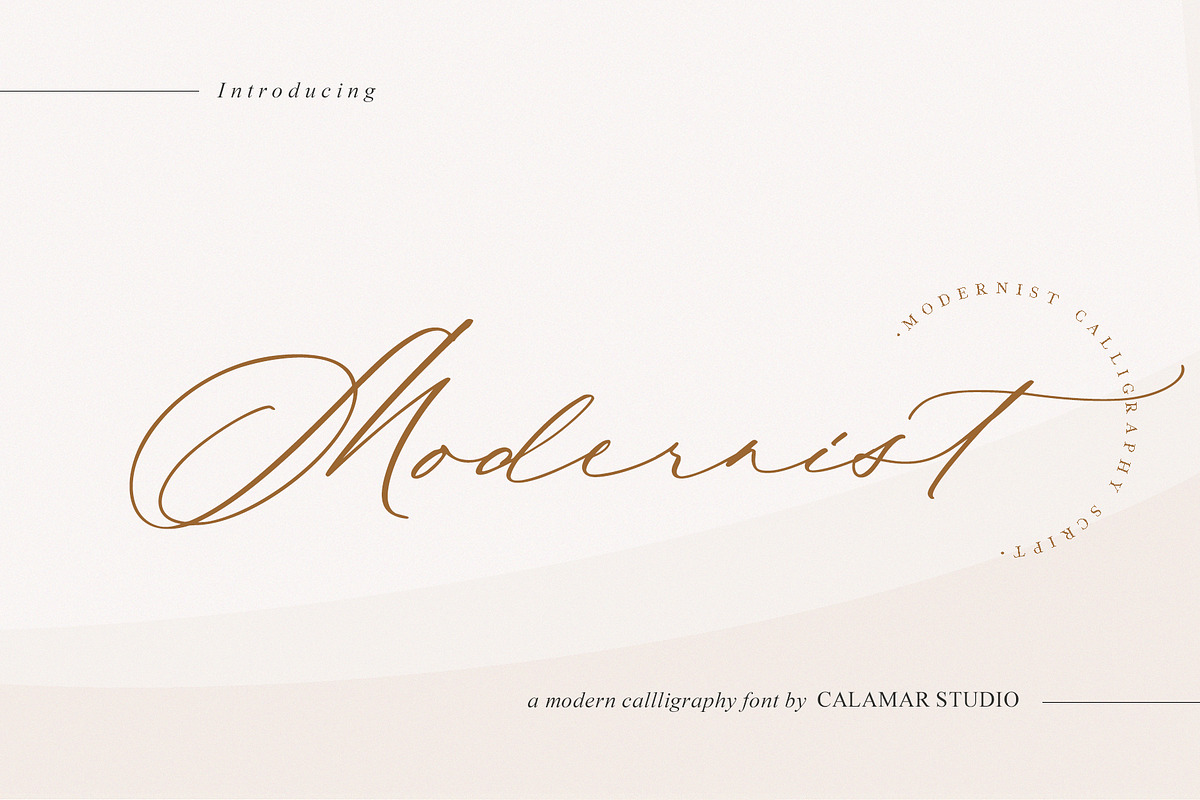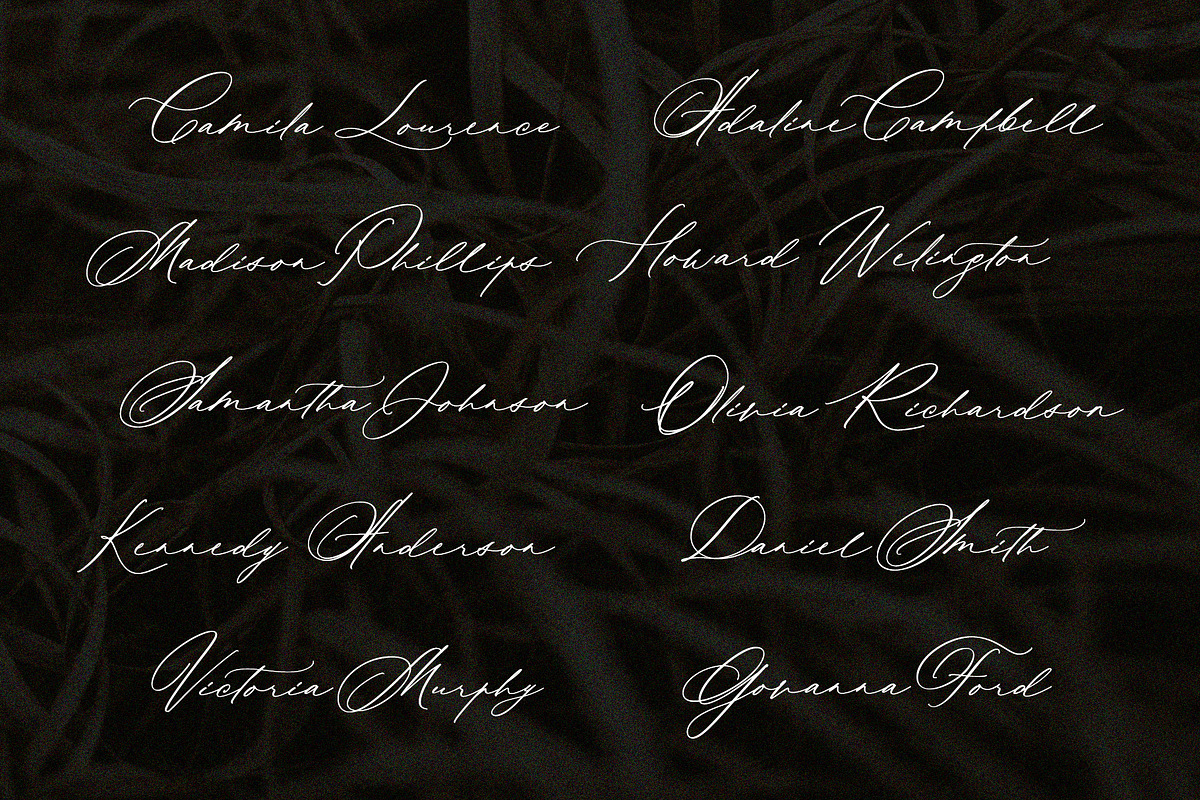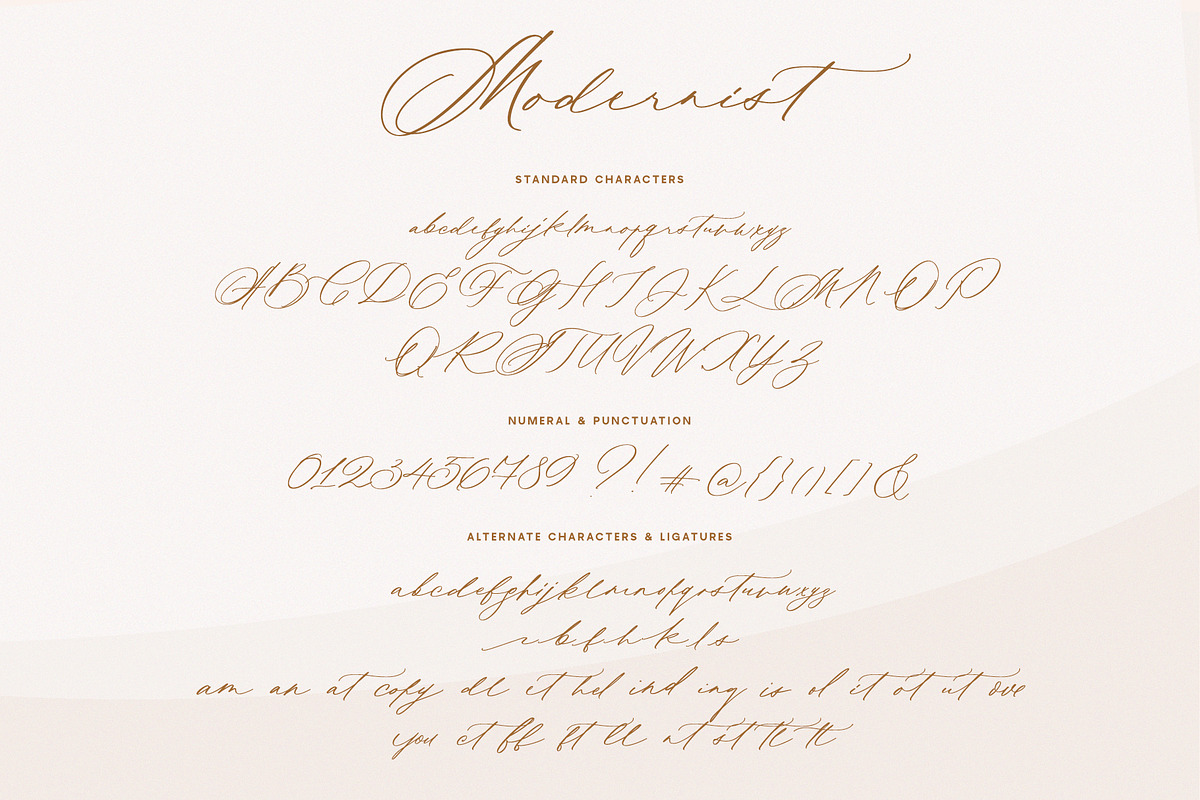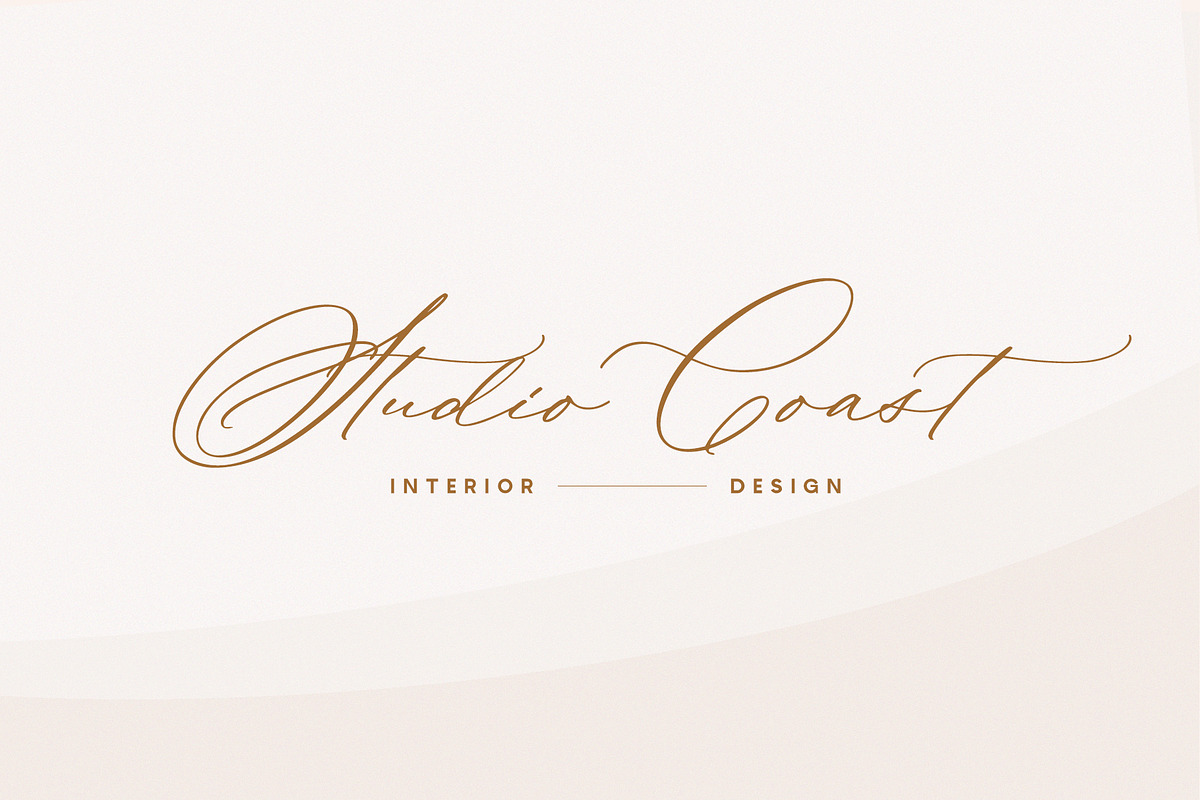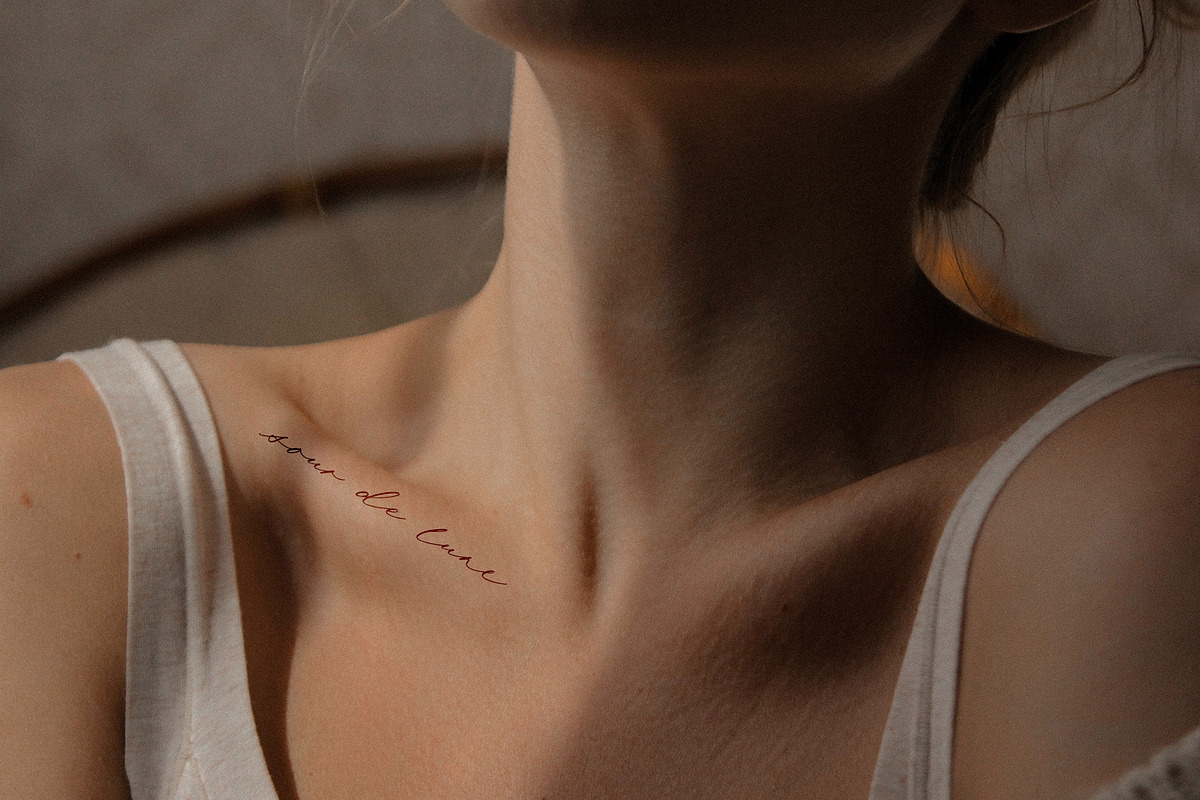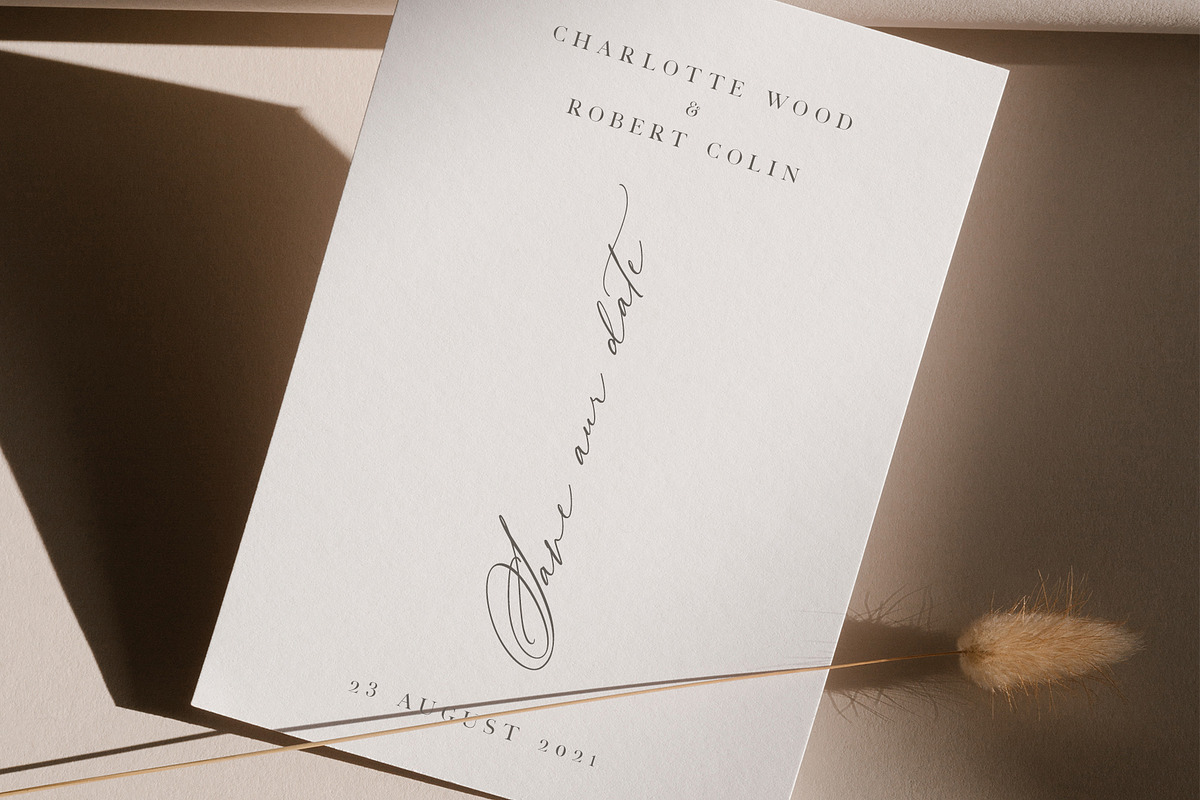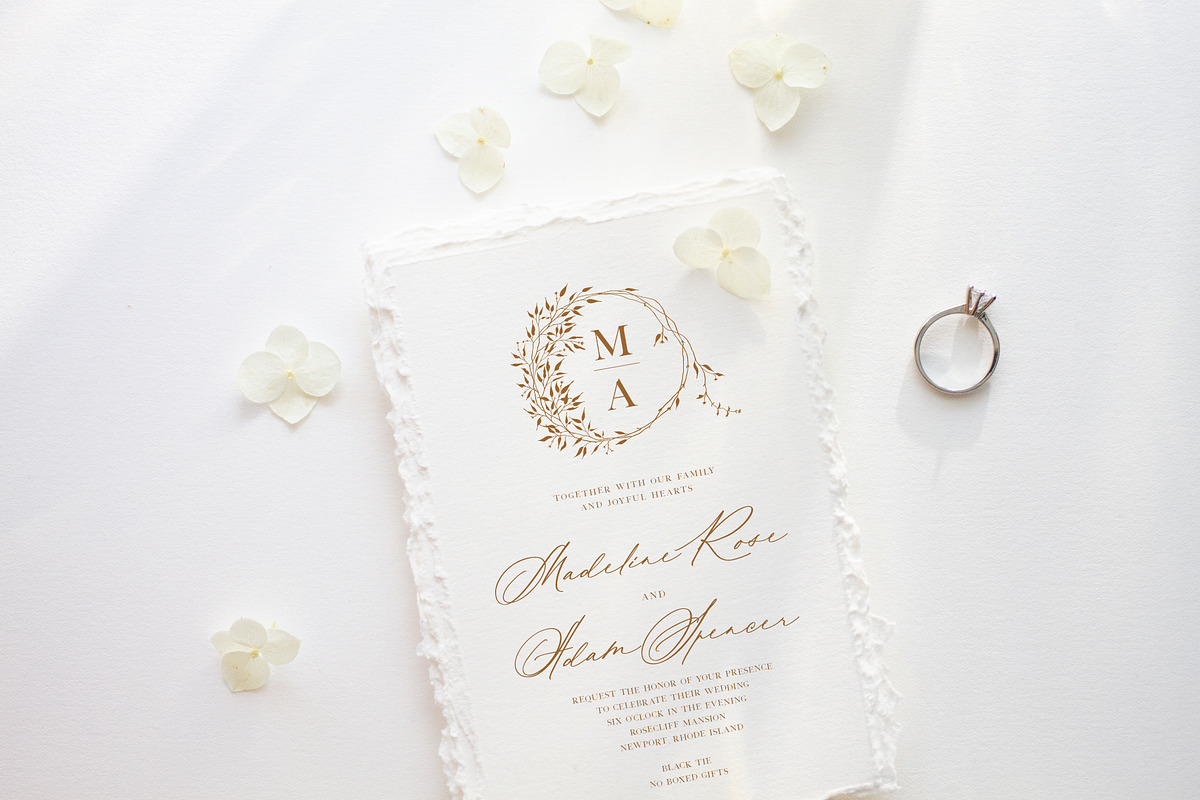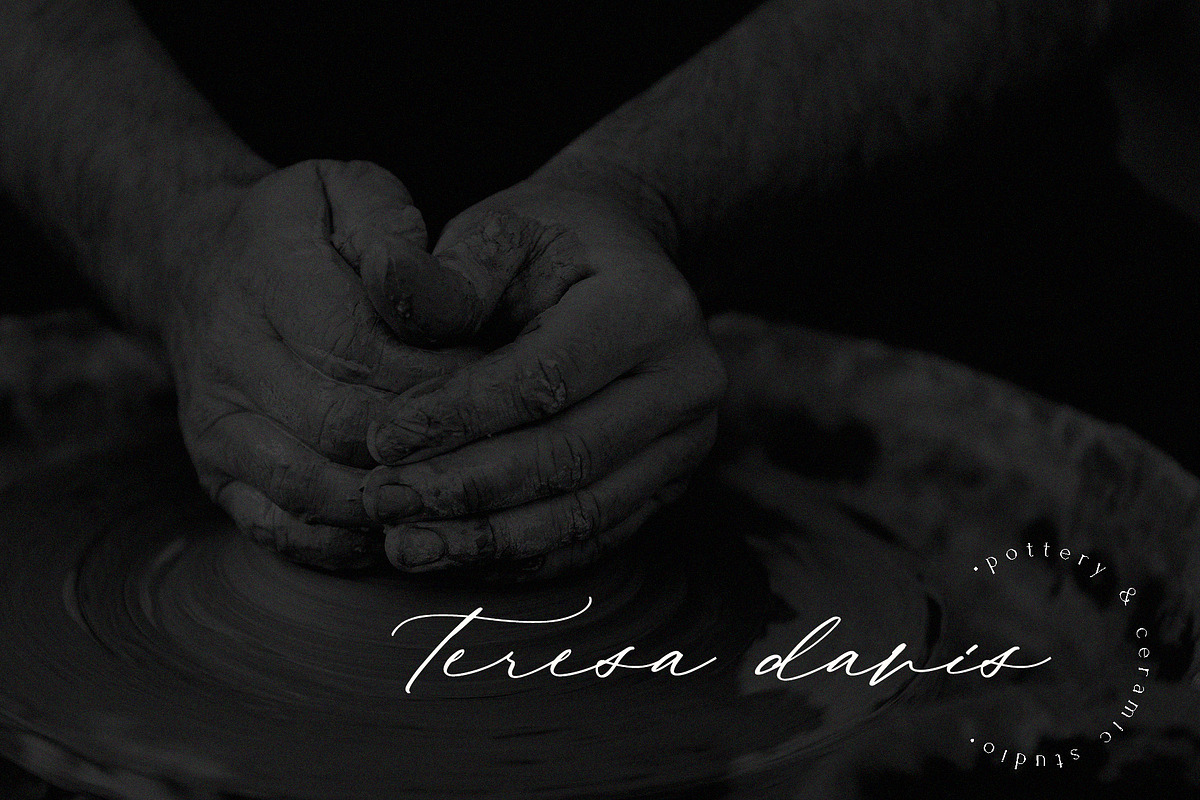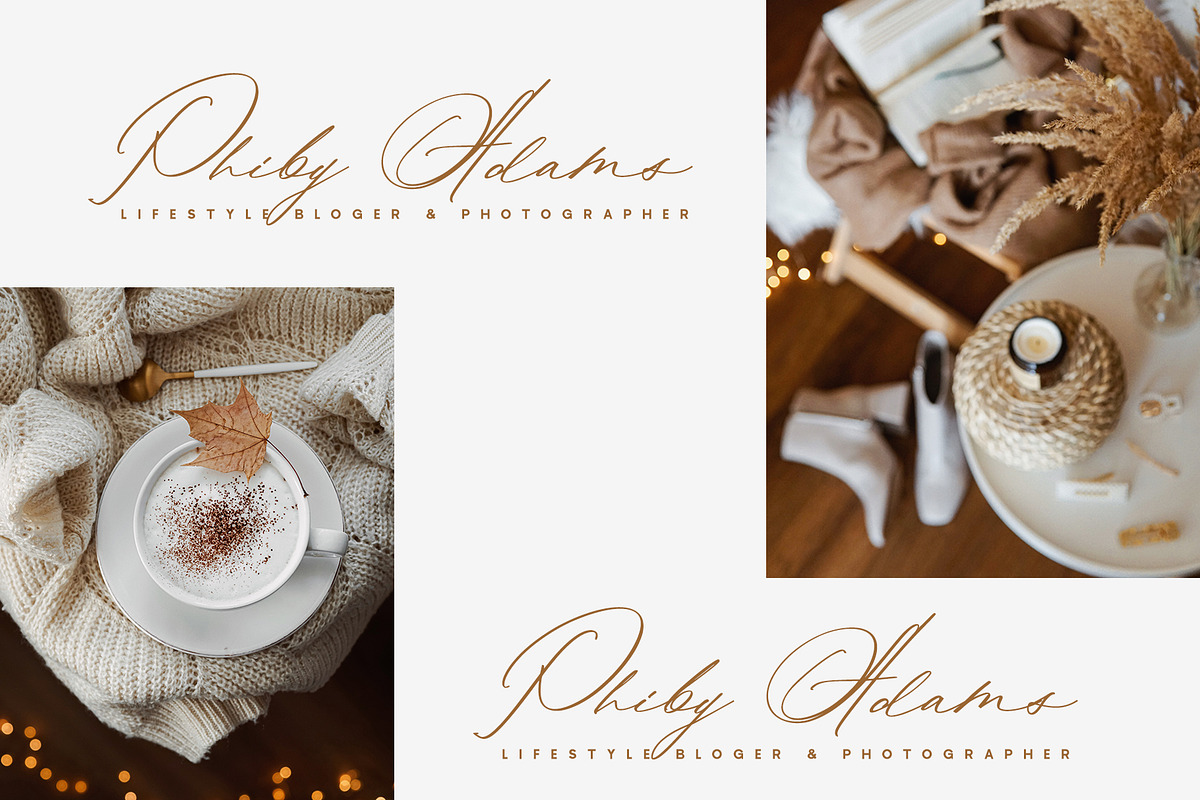
Modernist | Calligraphy Font
Introducing you my new modern calligraphy font - Modernist that particularly well suited for wedding invitations, save the date cards and feminine branding.
Modernist includes full set of Uppercase and Lowercase Basic Characters, Numerals and Punctuation. Also it contains ligatures and the stylistic alternates for lowercase characters to perfectly re-create natural calligraphy (check the previews in order to see them all).